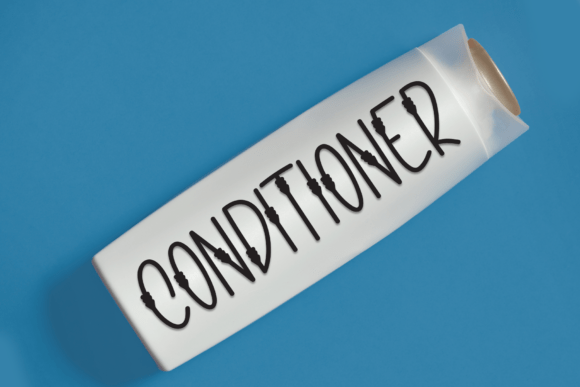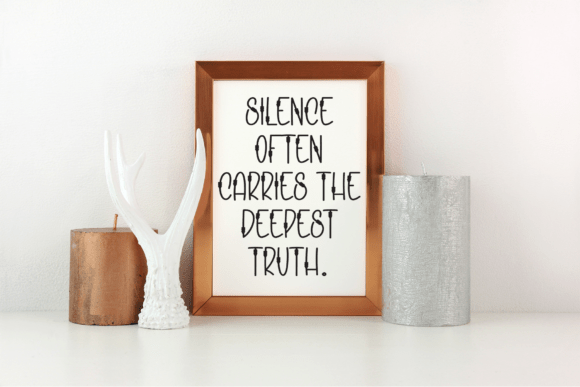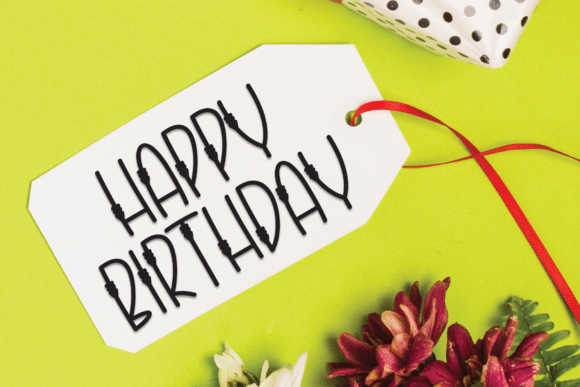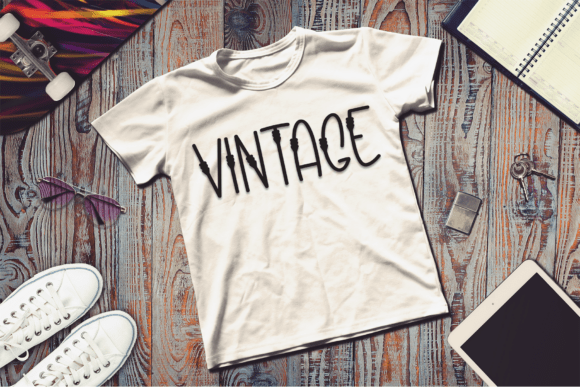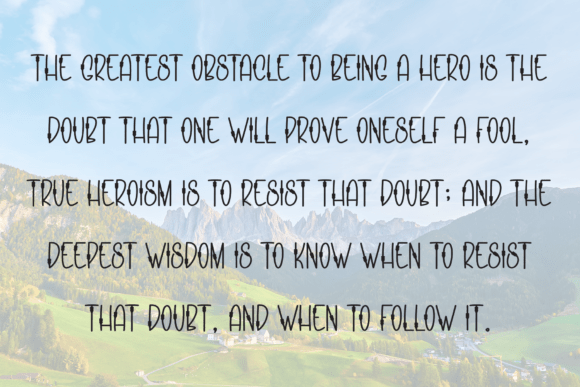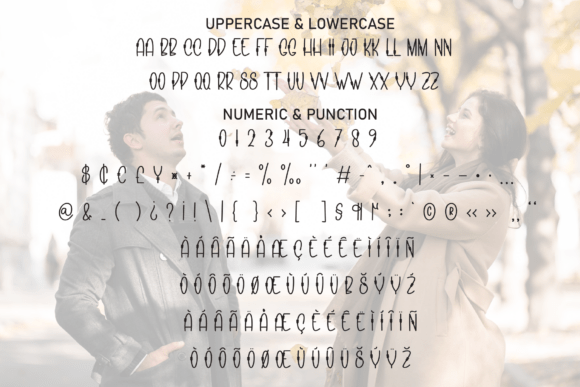
Fall in Love with the Perfect Font: Elevate Your Designs with Our Stunning Typeface
Are you tired of using the same old fonts in your designs? Do you want to add a touch of elegance and sophistication to your projects? Look no further! Our “Fall in Love Font” is here to take your designs to the next level. This beautiful, hand-crafted font is perfect for a wide range of applications, from wall displays and wedding invitations to social media posts, logos, advertisements, and more.
What Makes Our Font So Special?
Our “Fall in Love Font” is a unique and creative typeface that is sure to make your designs stand out. With its stylish and tasteful handwriting, this font is perfect for designers and crafters who want to add a personal touch to their projects. Whether you’re working on a romantic wedding invitation or a bold social media post, our font is sure to impress.
The possibilities are endless with our “Fall in Love Font”. Here are just a few ideas to get you started:
- Wall displays: Create stunning wall art with our font, perfect for home decor or office spaces.
- Wedding invitations: Make your wedding invitations truly special with our beautiful, hand-crafted font.
- Social media posts: Elevate your social media game with eye-catching posts that feature our stylish font.
- Logos: Create a lasting impression with a custom logo that showcases our unique typeface.
- Advertisements: Stand out from the crowd with ads that feature our bold and elegant font.
- Product packaging: Add a touch of sophistication to your product packaging with our beautiful font.
- Product designs: Create stunning product designs that feature our stylish typeface.
- Labels: Make your labels truly special with our hand-crafted font.
- Photography: Add a touch of elegance to your photography with our font, perfect for watermarks or captions.
- Invitations: Create beautiful invitations for any occasion, from birthdays to graduations.
- Stationery: Elevate your stationery with our stylish font, perfect for letters, cards, and more.
- Encoded PUA Character: Our font features an encoded PUA character, making it easy to access and use without additional design software.
Why Choose Our Font?
With so many fonts on the market, why choose ours? Here are just a few reasons:
- Unique and creative: Our font is truly one-of-a-kind, making it the perfect choice for designers and crafters who want to stand out.
- High-quality: Our font is crafted with the highest level of quality in mind, ensuring that it looks stunning in any project.
- Versatile: Our font is perfect for a wide range of applications, from romantic wedding invitations to bold social media posts.
If you’re looking for a font that will take your designs to the next level, look no further than our “Fall in Love Font”. With its stylish and tasteful handwriting, this font is perfect for a wide range of applications. Whether you’re a designer, crafter, or DIY enthusiast, our font is sure to impress. So why wait? Fall in love with our font today and start creating stunning designs that will leave a lasting impression!